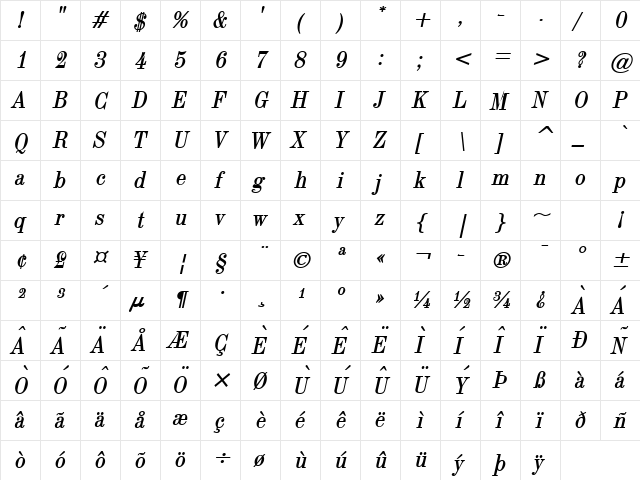
Indy 17 BoldItalic Font Preview
Design Context for Indy 17 Typeface
Indy 17 takes a measured approach to typography — its balanced proportions and neutral character make it a reliable workhorse for both digital and print work. The slanted form adds forward momentum and visual energy. The heavy weight commands attention and anchors typographic hierarchies.
Pro Tip: Try Indy 17 for annotation and caption copy alongside an upright companion — the contrast in angle creates a dynamic but ordered typographic system.